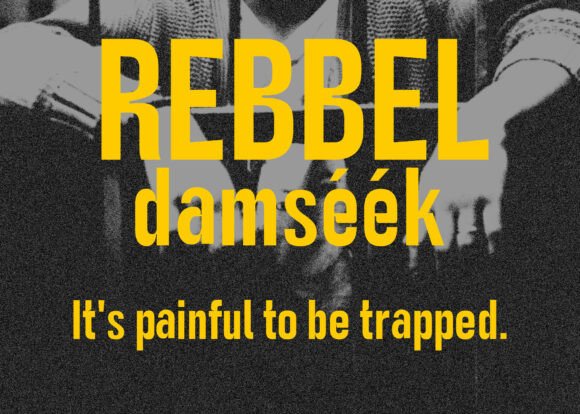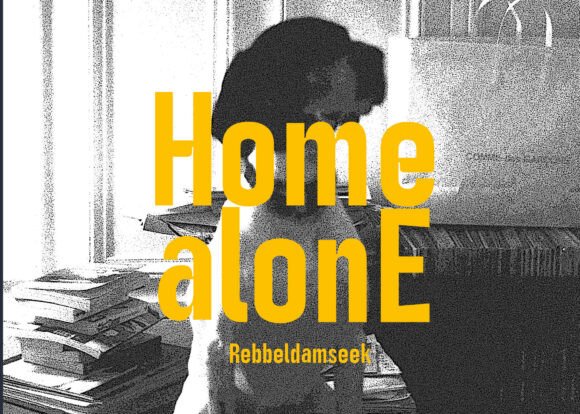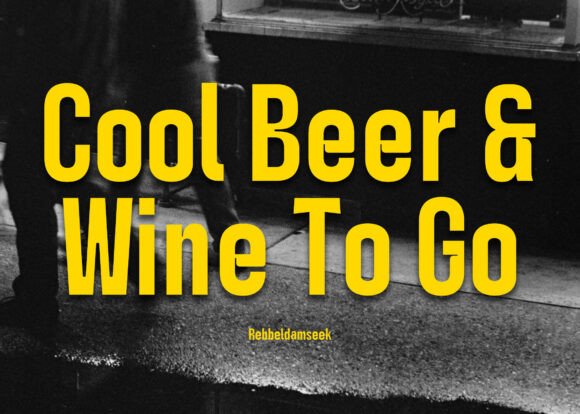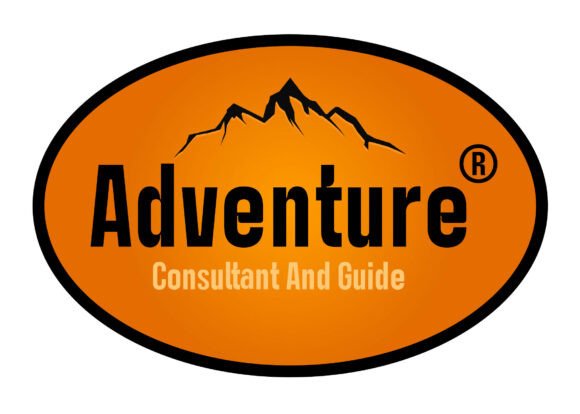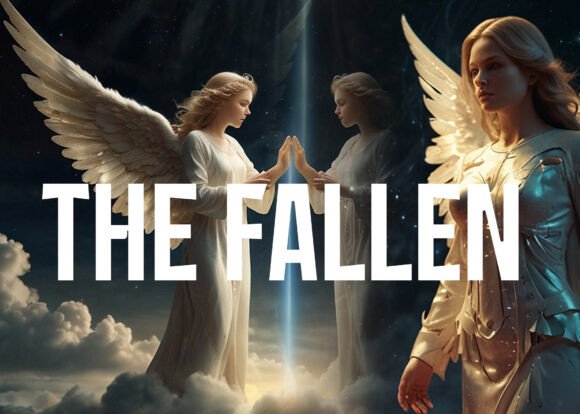
Introduction to Rebbel Damseek Font
Rebbel Damseek is a modern sans serif font.
Its design is really on point it looks elegant and captivating Rebbel Damseek is ready to put his own spin on various design concepts to get the best results.
Key Features of Rebbel Damseek Font